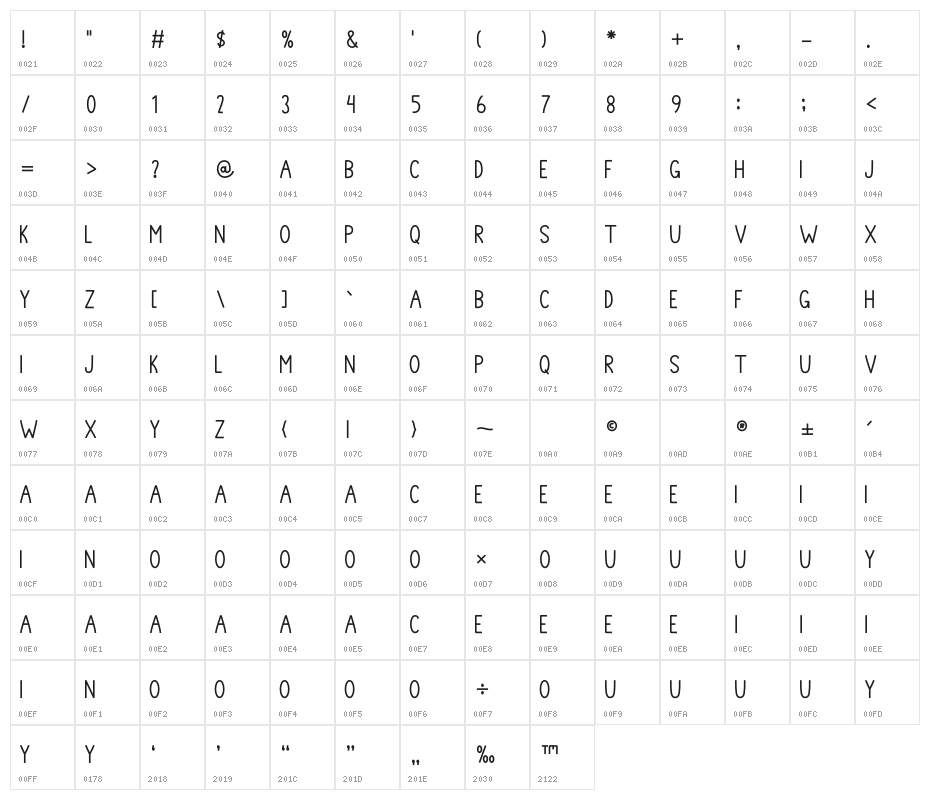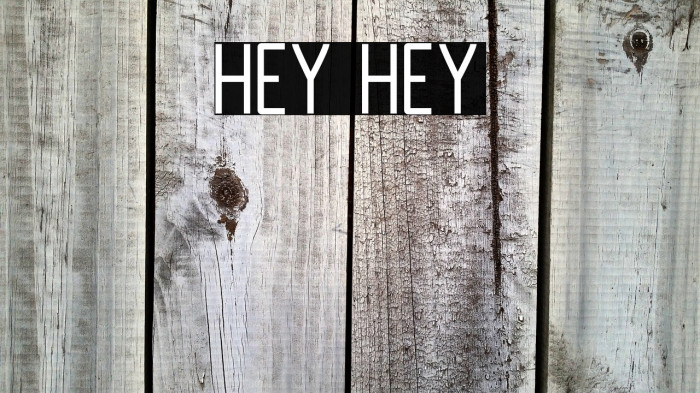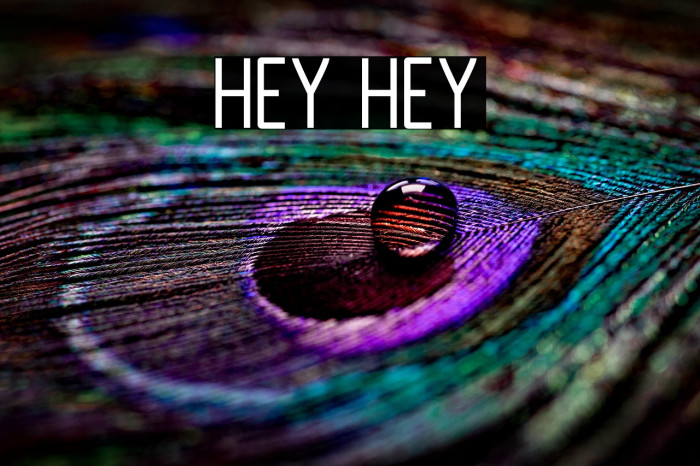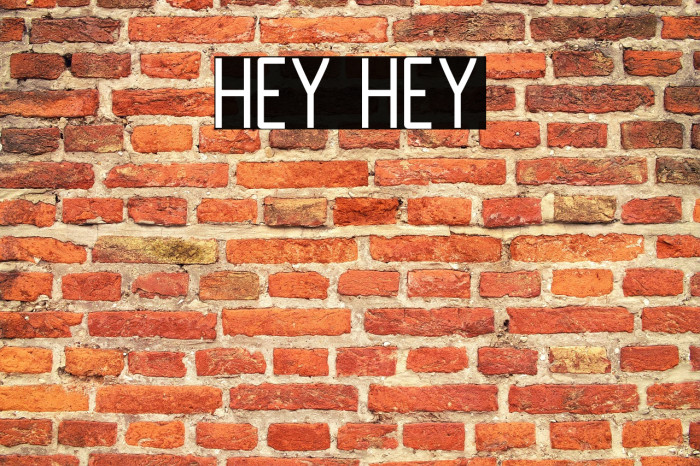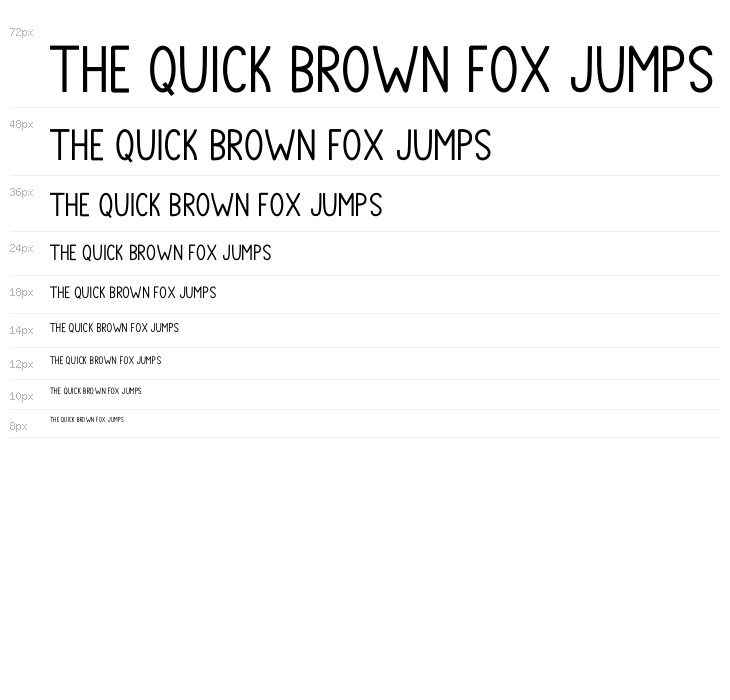
Hey Hey Font
Hey Hey Description
This font features a clean and modern sans-serif style with uniform stroke widths and a straightforward geometric structure. The characters are well-proportioned, offering a balanced and harmonious appearance. The uppercase and lowercase letters maintain a consistent height and width, contributing to a cohesive look. The numerals are clear and easy to read, making them suitable for various applications. Special characters are included, providing versatility for different design needs. The overall design is minimalistic, emphasizing readability and simplicity.
| Use Case | Headlines, Body text, Logos |
| Proposed Projects | Ideal for branding, web design, advertising, and editorial projects where clarity and modernity are desired. |